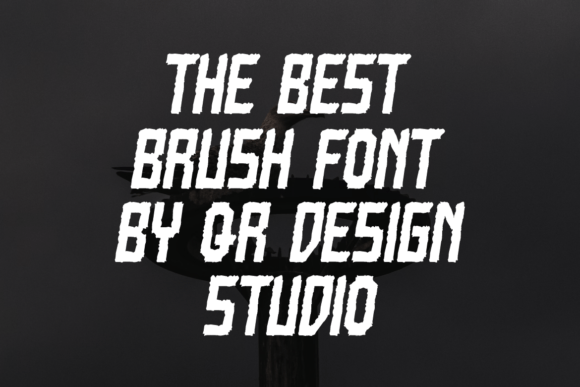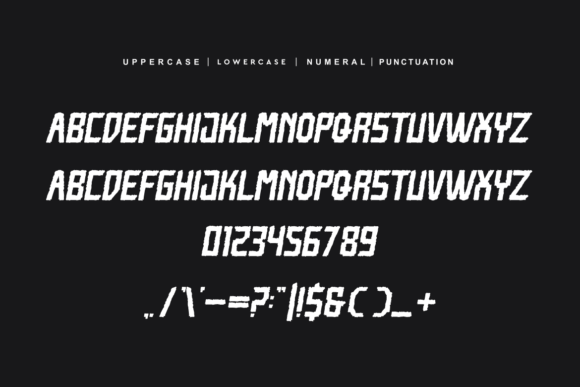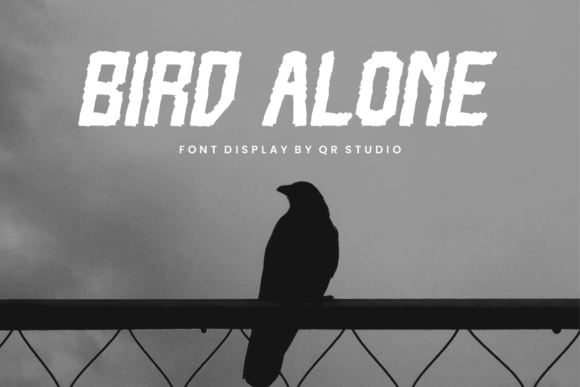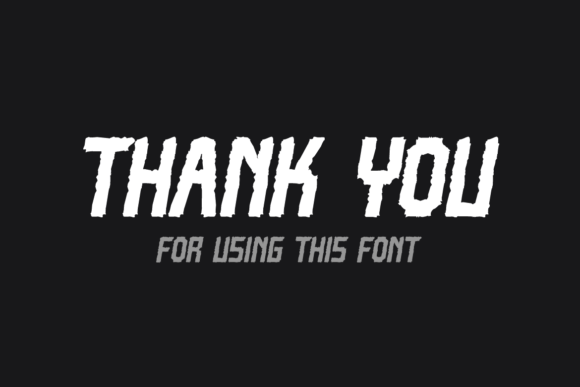
Unleash the Magic of Brushle Rusher Font: A Modern yet Whimsical Display Font
Are you tired of using the same old fonts in your designs? Look no further than Brushle Rusher Font, an incredibly cool and unique display font that will transport your creations to a magical world. With its modern yet whimsical style, Brushle Rusher is perfect for designers and crafters looking to add a touch of magic to their work.
What Makes Brushle Rusher Font So Special?
Brushle Rusher Font stands out from the crowd with its distinctive brush-like strokes and playful flair. Its modern design ensures that it looks fresh and contemporary, while its whimsical style adds a touch of fantasy and imagination. Whether you’re working on a logo, poster, or social media graphic, Brushle Rusher Font is sure to make your design stand out.
Key Features of Brushle Rusher Font
- Unique Brush-Like Strokes: Brushle Rusher Font features distinctive brush-like strokes that give it a hand-crafted feel.
- Modern yet Whimsical Style: The font’s modern design ensures it looks fresh and contemporary, while its whimsical style adds a touch of fantasy and imagination.
- Highly Versatile: Brushle Rusher Font can be used for a wide range of design projects, from logos and posters to social media graphics and more.
- Easily Readable: Despite its unique style, Brushle Rusher Font is easily readable, making it perfect for use in a variety of contexts.
Brushle Rusher Font is a dream come true for designers and crafters looking to add a touch of magic to their work. Whether you’re creating:
- Logos and Branding: Use Brushle Rusher Font to create a unique and memorable logo that sets your brand apart.
- Posters and Flyers: Add a touch of whimsy to your posters and flyers with Brushle Rusher Font.
- Social Media Graphics: Use Brushle Rusher Font to create eye-catching social media graphics that stand out from the crowd.
- Handmade Crafts: Brushle Rusher Font is perfect for use in handmade crafts, such as card making and scrapbooking.
Tips for Using Brushle Rusher Font
To get the most out of Brushle Rusher Font, here are a few tips:
- Experiment with Colors: Brushle Rusher Font looks great in a variety of colors, so don’t be afraid to experiment and find the perfect hue for your design.
- Play with Pairings: Brushle Rusher Font pairs well with a range of other fonts, so try pairing it with different fonts to create a unique look.
- Use it Sparingly: While Brushle Rusher Font is incredibly versatile, it’s best used sparingly to avoid overwhelming the design.
In conclusion, Brushle Rusher Font is an incredibly cool and unique display font that is sure to immerse your designs in a magical world. With its modern yet whimsical style, highly versatile design, and easily readable text, Brushle Rusher Font is perfect for designers and crafters looking to add a touch of magic to their work. So why not give it a try and see the magic for yourself?